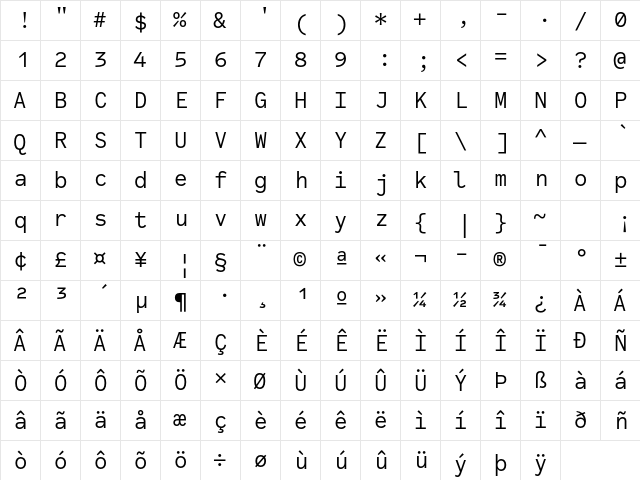
Code Saver Regular Font Preview
Code Saver Regular
Code Saver Regular Font Details
| Foundry | Dharma Type |
| Designer | Ryoichi Tsunekawa |
Design Context for Code Saver Typeface
Code Saver brings the precise, column-aligned rhythm of monospaced typography to designs that value technical clarity and systematic order.
Well-suited to data-driven dashboards, coding tutorials, and any design that wants to reference the world of programming.
Pro Tip: Use Code Saver with slightly increased line-height for extended reading — fixed-width spacing can feel dense in longer passages without extra breathing room.